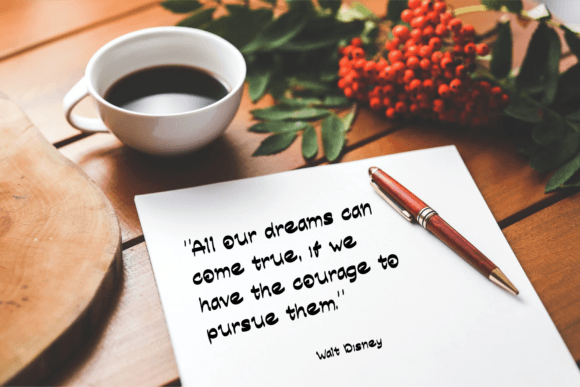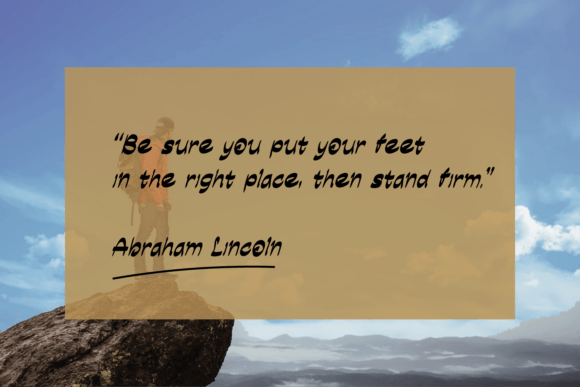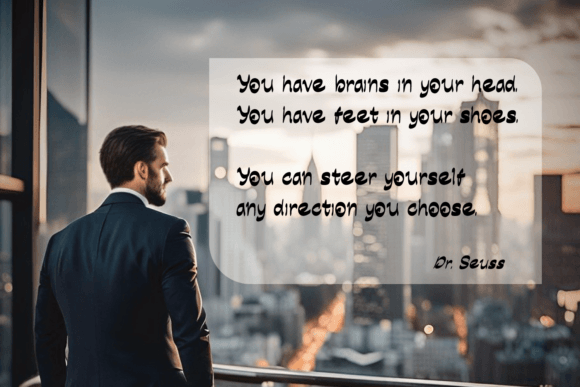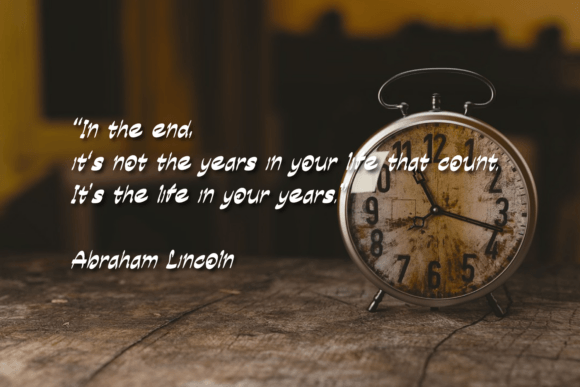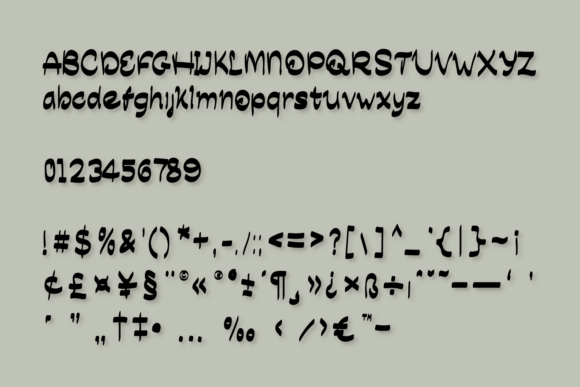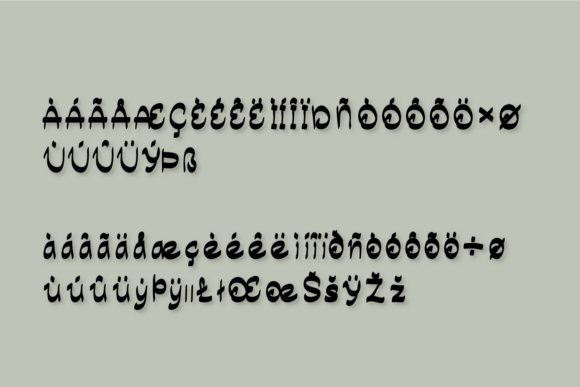
Introducing Handletter Font: Elevate Your Designs with Elegance and Class
Are you tired of using the same old fonts in your designs? Do you want to add a touch of elegance and sophistication to your projects? Look no further than Handletter Font, a lovely and delicate script font that exudes refinement and poise. In this article, we’ll explore the features and benefits of Handletter Font, and how it can elevate your designs to the next level.
What is Handletter Font?
Handletter Font is a beautifully crafted script font that is perfect for designers and crafters who want to add a touch of elegance to their work. This font was particularly designed for those who need a beautiful and refreshing look to their designs. With its delicate and refined strokes, Handletter Font is ideal for creating stunning typography, logos, and branding materials.
Key Features of Handletter Font
- Elegant and Refined: Handletter Font features delicate and refined strokes that exude elegance and sophistication.
- Beautifully Crafted: This font was carefully crafted to provide a beautiful and refreshing look to your designs.
- Perfect for Branding: Handletter Font is ideal for creating stunning logos, typography, and branding materials.
- Easy to Read: Despite its delicate nature, Handletter Font is easy to read and understand, making it perfect for body text and headlines.
- Versatile: Handletter Font can be used for a wide range of design projects, from wedding invitations to business cards.
Benefits of Using Handletter Font
Using Handletter Font in your designs can have numerous benefits. Here are a few:
- Adds Elegance and Sophistication: Handletter Font can instantly elevate your designs and add a touch of elegance and sophistication.
- Stand Out from the Crowd: With its unique and refined strokes, Handletter Font can help your designs stand out from the crowd.
- Perfect for Creative Projects: Handletter Font is ideal for creative projects, such as art, craft, and design.
Tips and Tricks for Using Handletter Font
Here are a few tips and tricks for using Handletter Font:
- Use it for Headlines and Titles: Handletter Font is perfect for headlines and titles, where you want to make a bold statement.
- Pair it with Other Fonts: Pair Handletter Font with other fonts to create a unique and interesting typography.
- Use it for Branding: Use Handletter Font for branding materials, such as logos, business cards, and letterheads.
| Font Name | Handletter Font |
| Author | maneka |
In conclusion, Handletter Font is a lovely and delicate script font that exudes elegance and class. With its refined strokes and beautiful craftsmanship, it’s perfect for designers and crafters who want to add a touch of sophistication to their designs. Whether you’re creating typography, logos, or branding materials, Handletter Font is a great choice. So why not give it a try and see how it can elevate your designs to the next level?